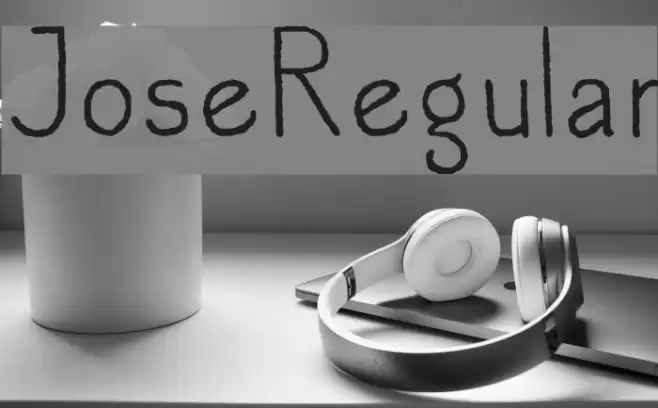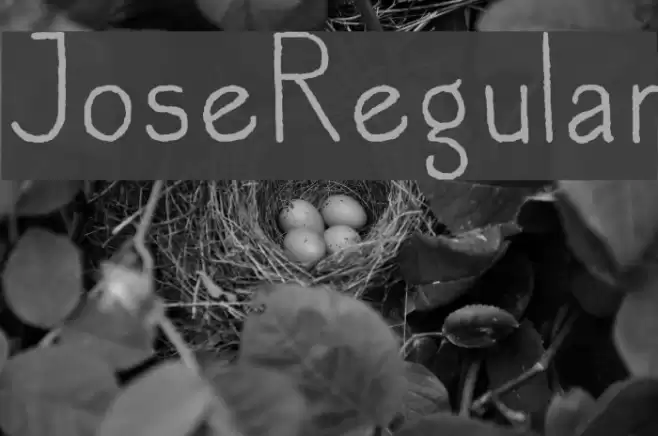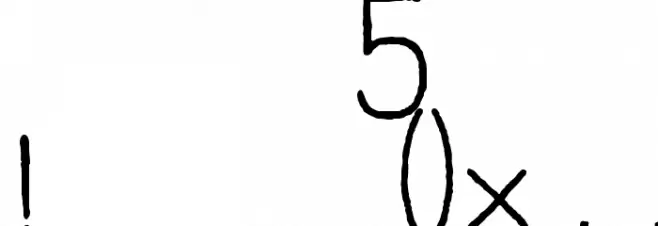
JoseRegular Font
JoseRegular Description
This font features a hand-drawn, organic style with slightly irregular strokes that give it a casual and approachable feel. The uppercase and lowercase letters maintain a consistent height, contributing to a uniform appearance. The characters are slightly narrow, with a moderate contrast in stroke thickness, adding to its unique charm. The numbers and special characters follow the same style, ensuring coherence across all text elements. This font is ideal for projects that require a personal touch or a handwritten aesthetic.
A hand-drawn, organic font with slightly irregular strokes and moderate contrast from Distorted Eroded fonts.
- Proposed Projects: Ideal for greeting cards, personal blogs, creative branding, and informal invitations.
- Width: Condensed
- Overall Style: Casual
- Use Case: Logos, Headlines, Informal Text